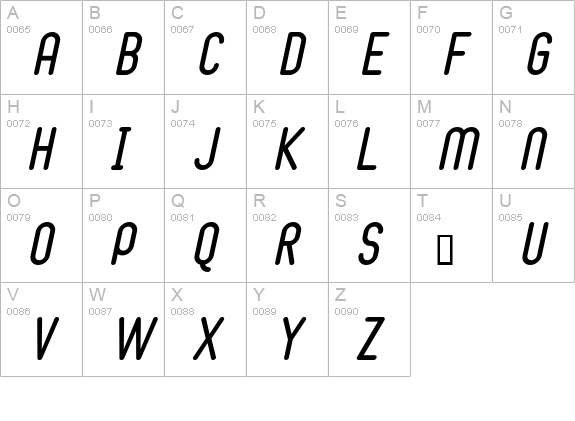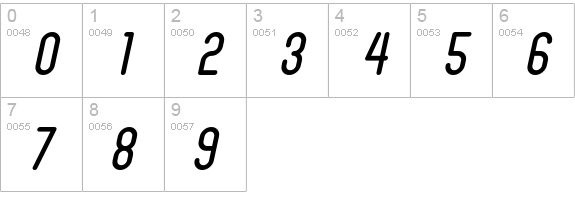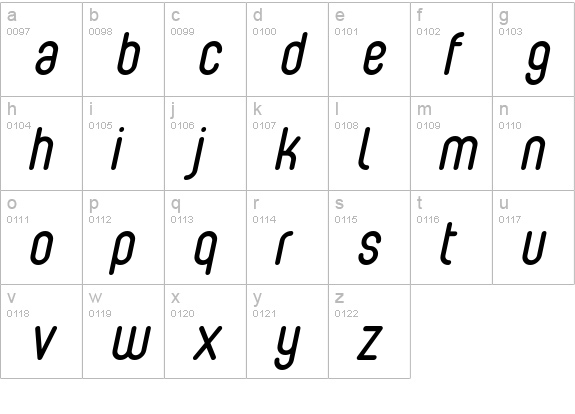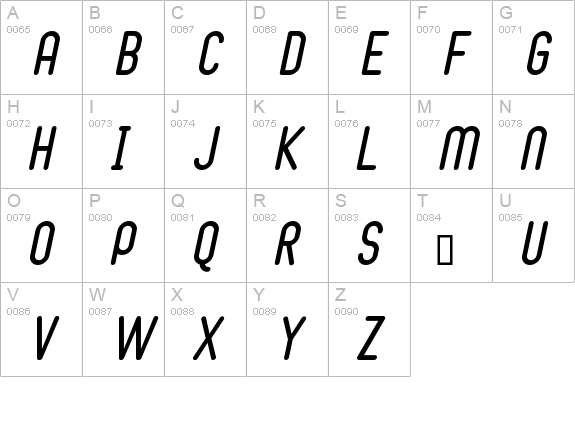
BubbleBoy2 Font Details
Introducing BubbleBoy2 font, a delightful and playful typeface that exudes a sense of fun and whimsy. Perfect for projects that require a touch of charm and lightheartedness, BubbleBoy2 font features rounded edges and a bubbly appearance that will bring a smile to your audience's face. Whether you're designing invitations, posters, or social media graphics, this font is sure to add a cheerful touch to your creations. Best of all, BubbleBoy2 font is completely free! You can easily download it at FontsMarket.com and start using it in your projects right away. Don't miss out on this fantastic opportunity to add a touch of playfulness to your designs with BubbleBoy2 font. Download it now and let your creativity soar!